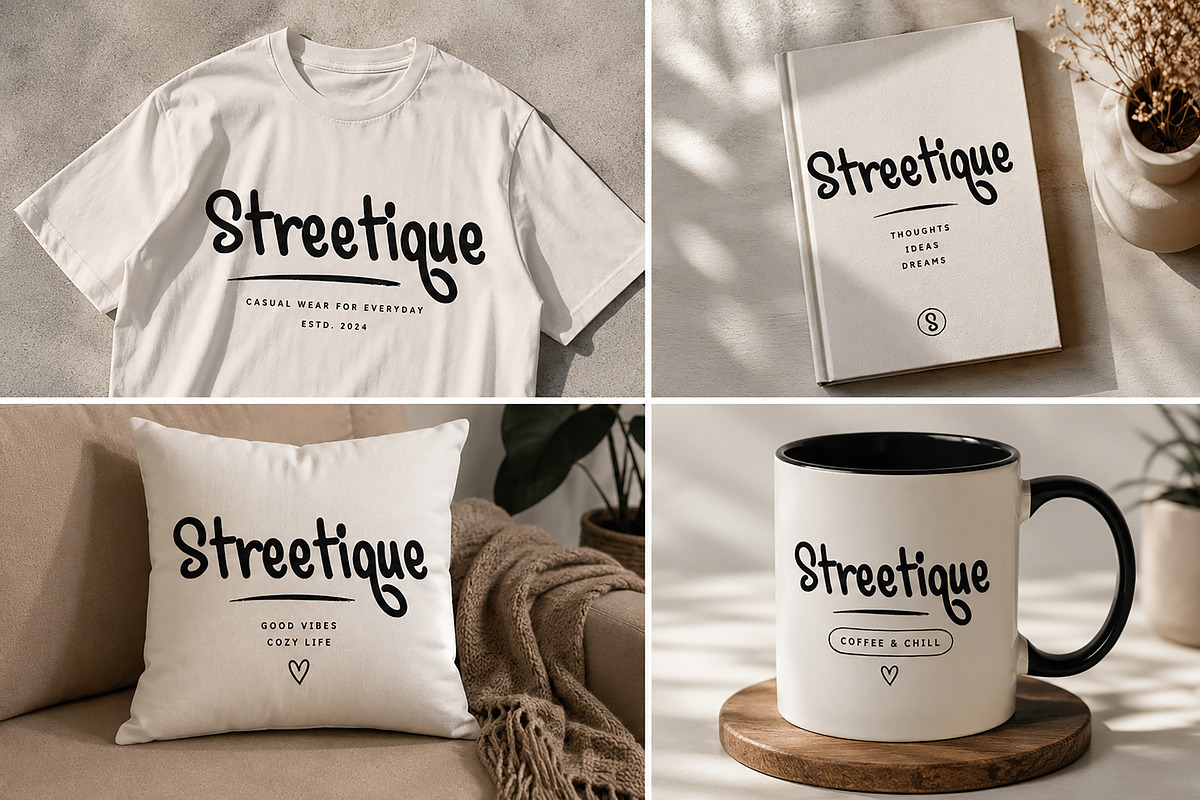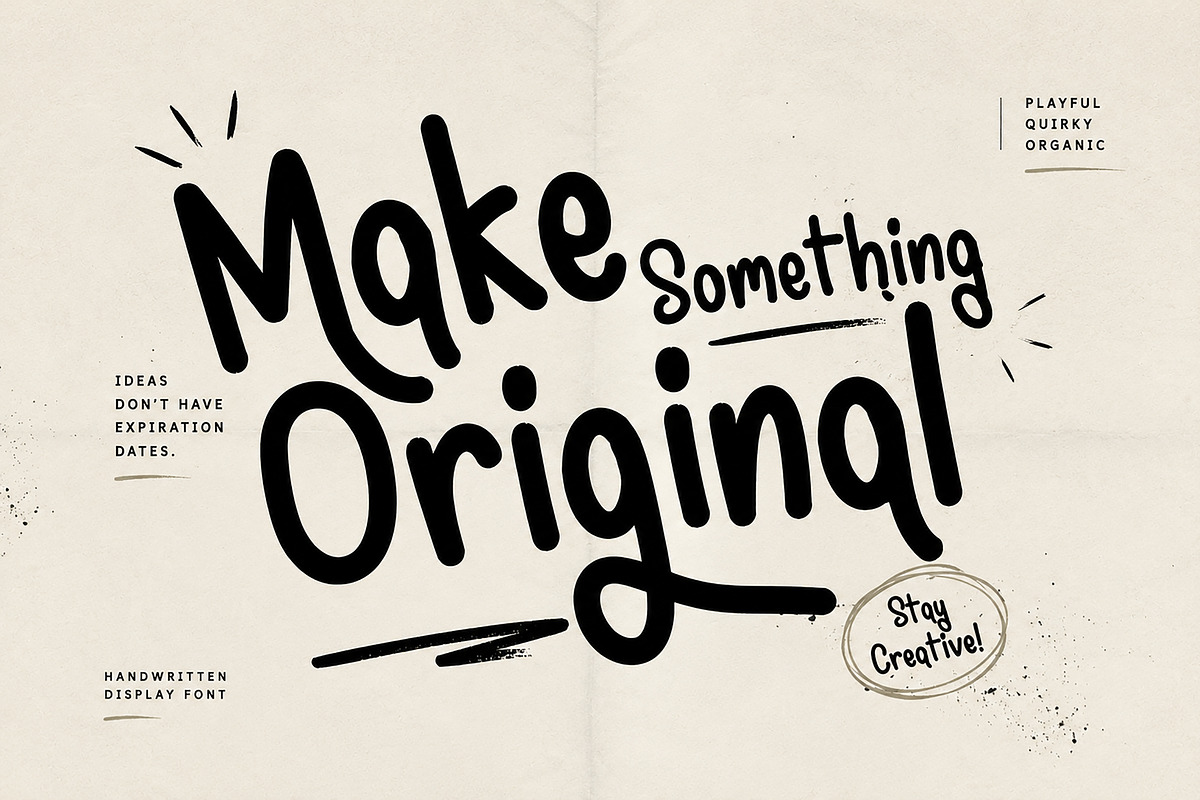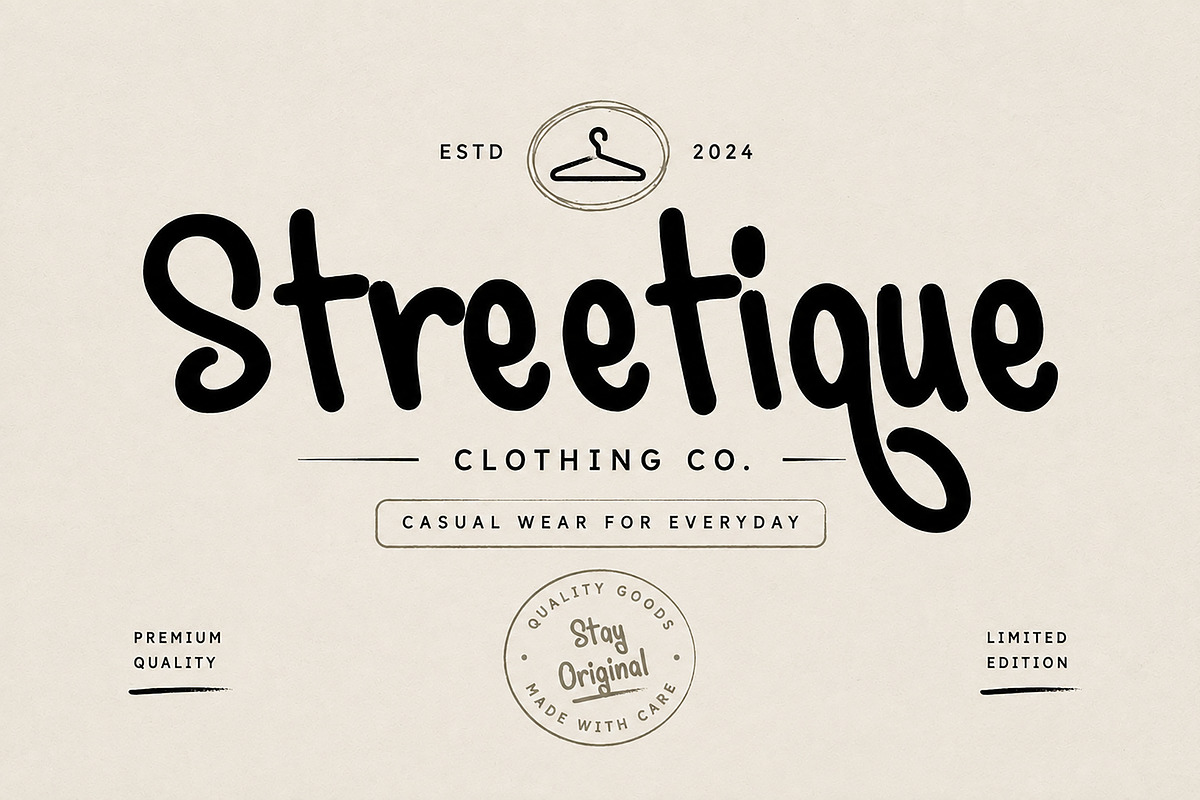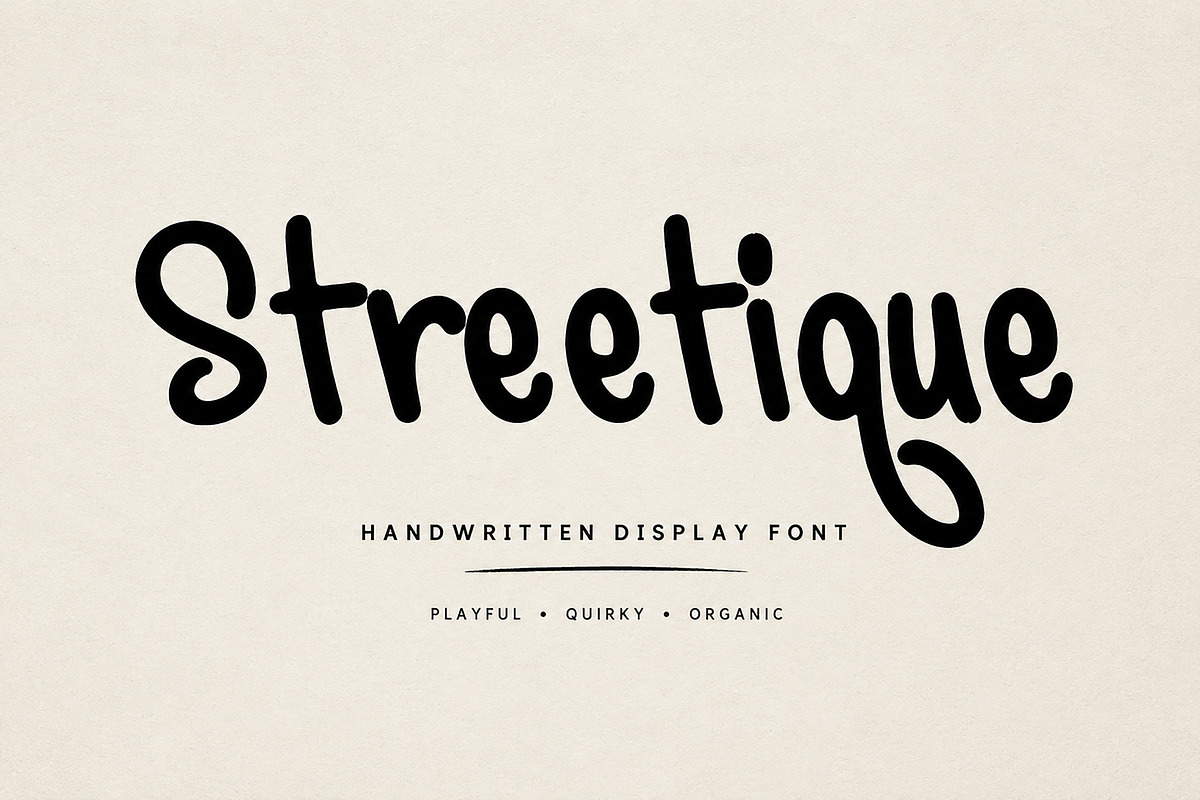
Streetique
Streetique is a playful handwritten display font with a bold, organic personality and charmingly irregular letterforms. Its smooth rounded shapes and expressive flowing details make it perfect for designs that need a fun, friendly, creative, and memorable feel.
Designed to stand out, Streetique works beautifully for branding, logos, apparel, posters, packaging, stationery, social media graphics, book covers, lifestyle products, and other creative display designs.
Its casual handwritten character brings a handmade touch to both modern and retro-inspired projects, making it a versatile choice for designers, small businesses, creators, and anyone looking to add personality to their typography.
Font Name: Streetique
Style: Handwritten Display Font
Character: Playful, Quirky, Organic, Casual & Expressive